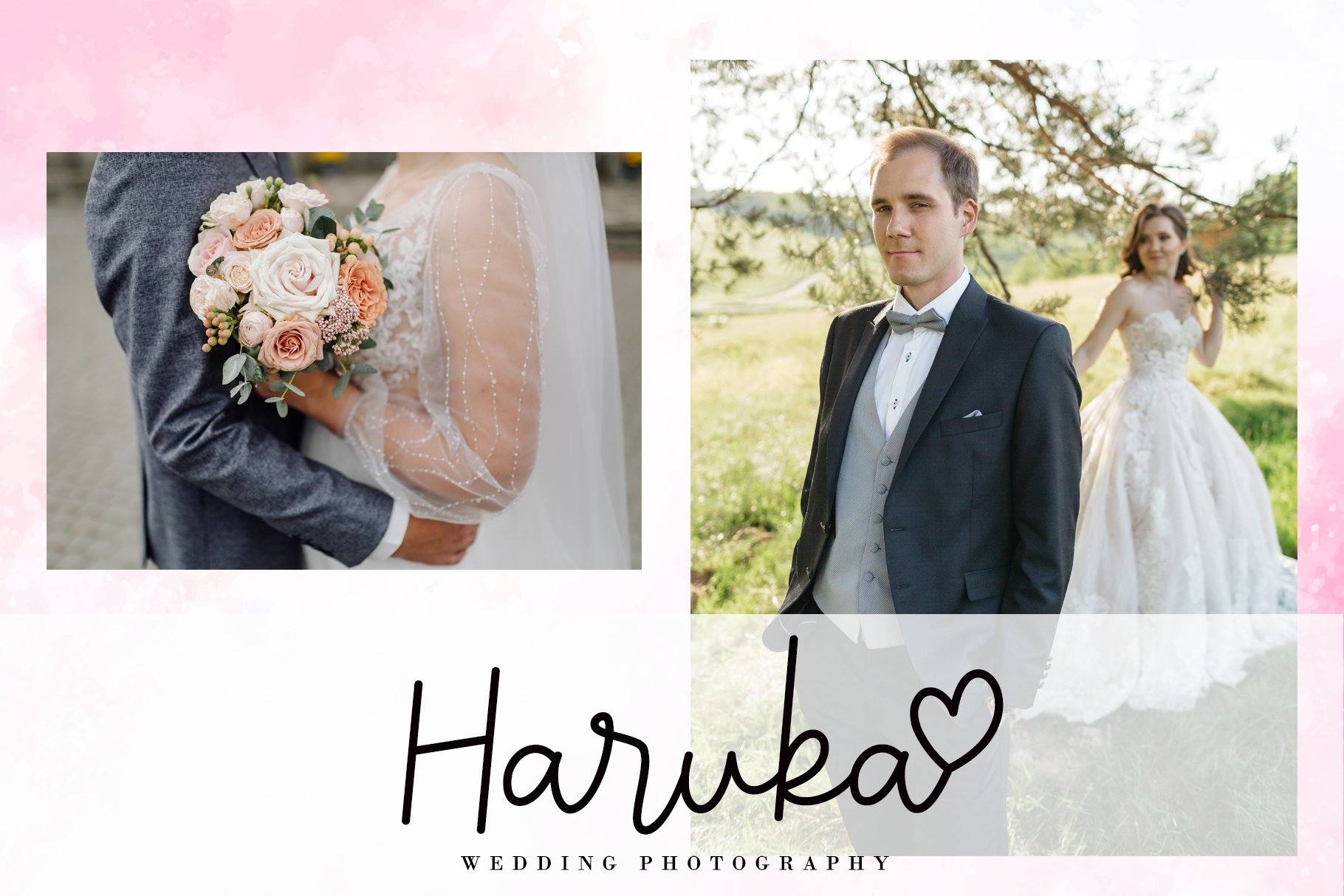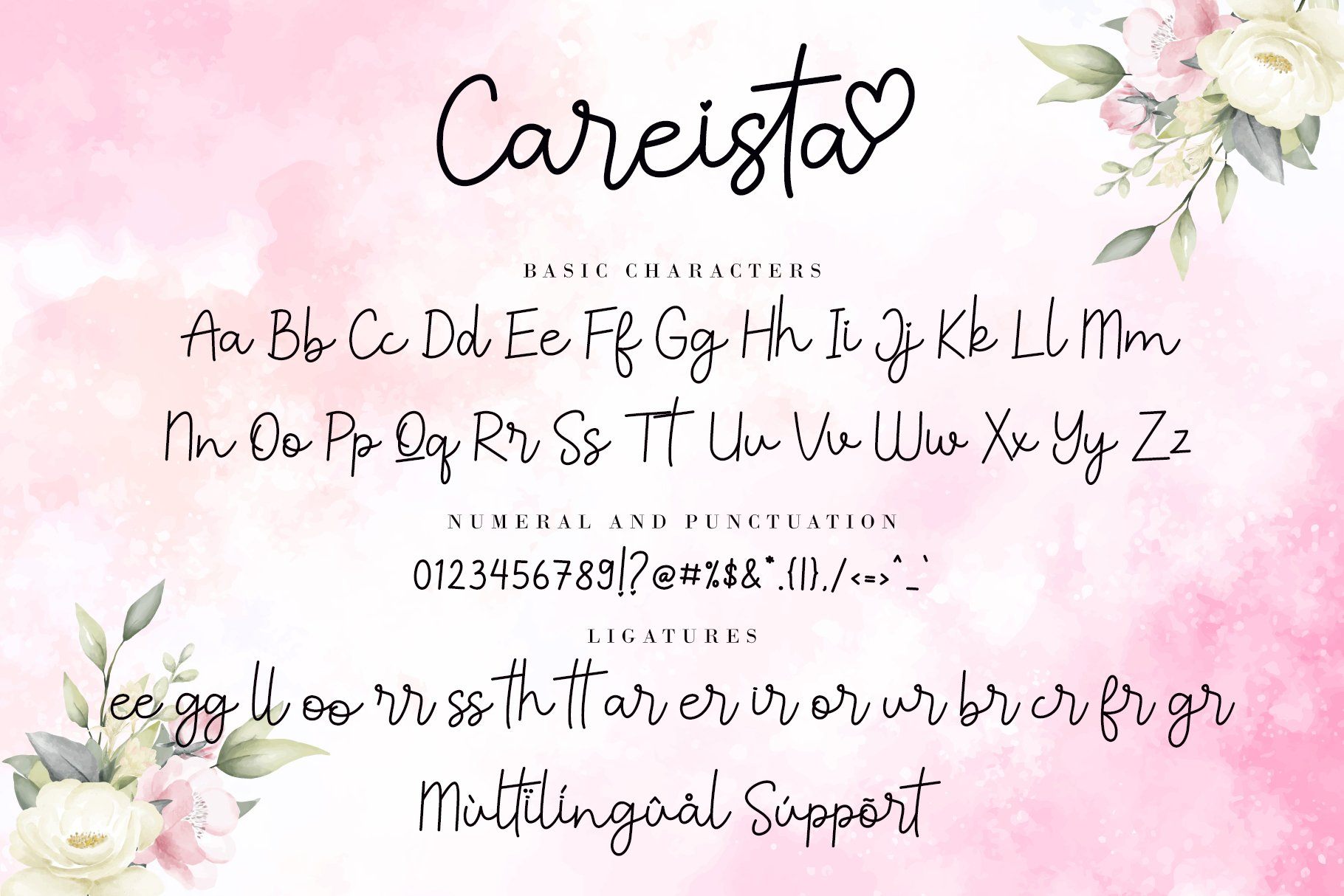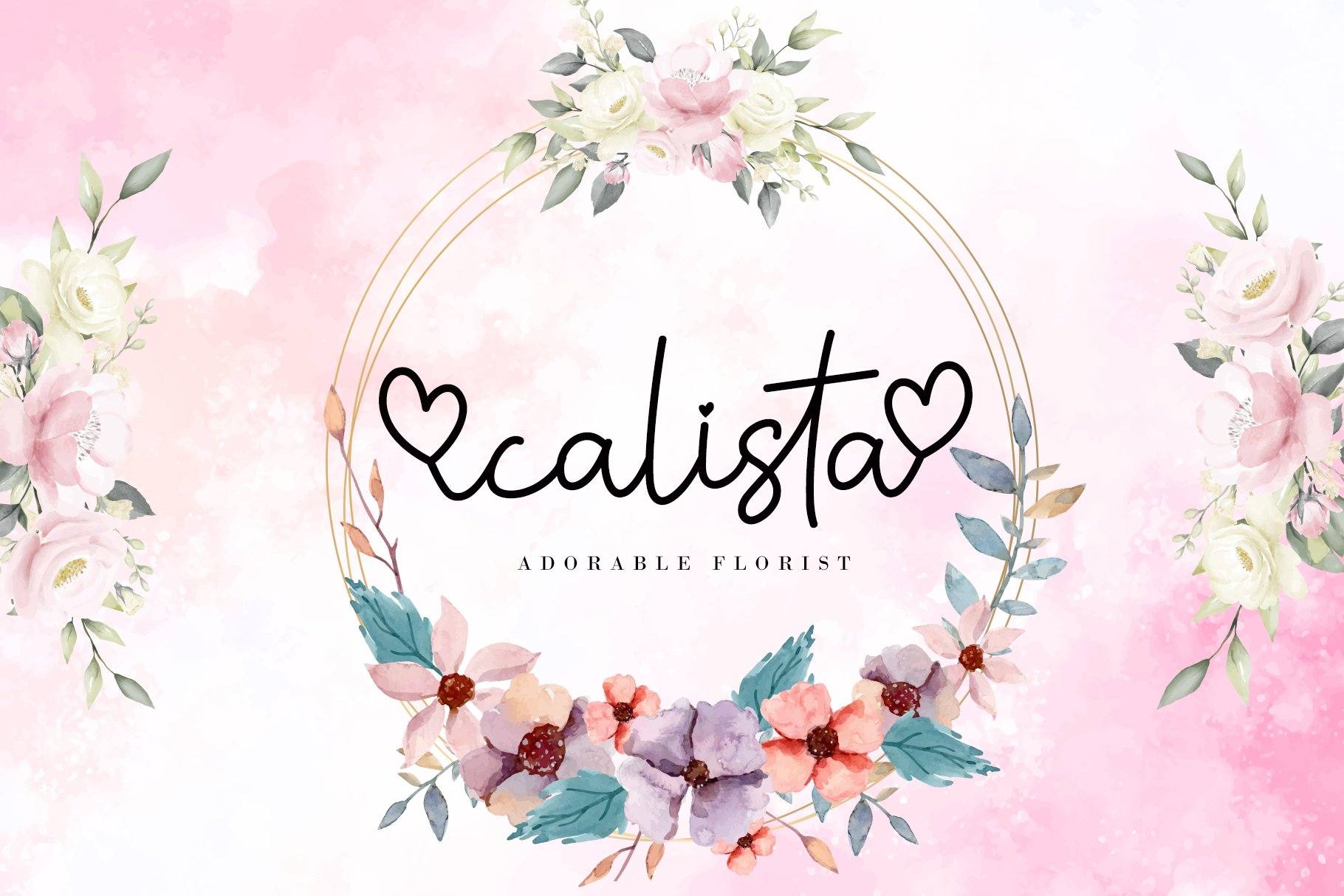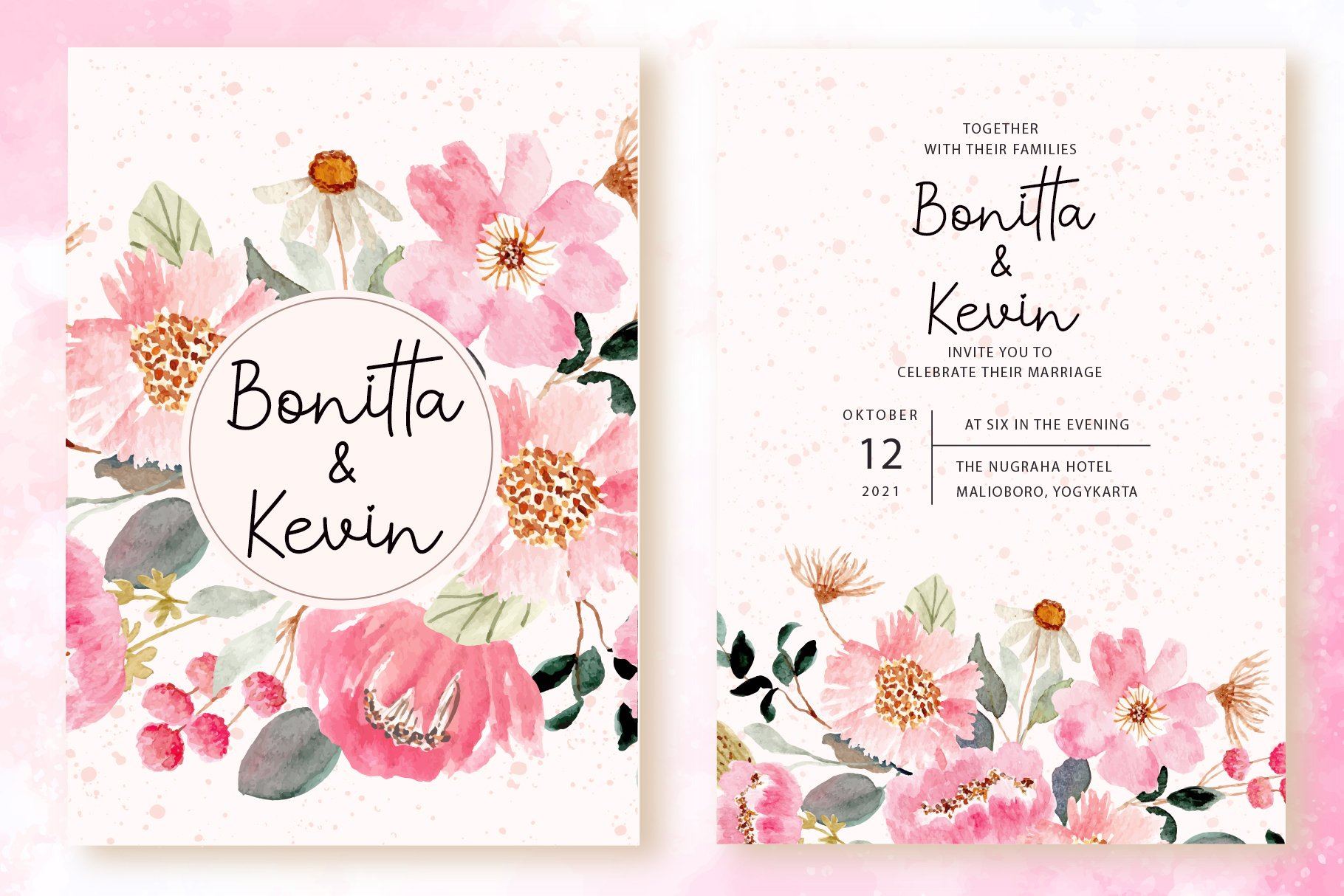
About Careista
Careista is a sweet and flowing handwritten font. It is PUA encoded which means you can access all of the glyphs and swashes with ease! It maintains its classy calligraphic influences while feeling contemporary and fresh. Fall in love with its incredibly distinct and timeless style and use it to create spectacular designs! What’s Included : Careista Regular (TTF, OTF, WOFF) Careista Italic (TTF, OTF, WOFF) Support silhouette Simple installations (a-z) titling, (a-z) swashes, and Ligature Works both on Mac & PC Accessible in Adobe Illustrator, Adobe Photoshop, Adobe InDesign, CorelDraw, even work on Microsoft Word. Support multilingual; ä ö ü Ä Ö Ü ß ¿ ¡ To access the alternate glyphs, you need a program that supports OpenType features such as Adobe Illustrator CS, Adobe Photoshop CC, Adobe Indesign, and CorelDraw. For more information about how to access alternate glyphs, check out this link ( http://goo.gl/ZT7PqK ) This font is PUA encoded which means you can access all of the playful glyphs and swashes with ease! It also features a wealth of special features including alternate glyphs and ligatures. Please kindly message us for any questions or issue about our product. Thank you for your purchase and have a wonderful day! With Love, AEN Creative Studio.